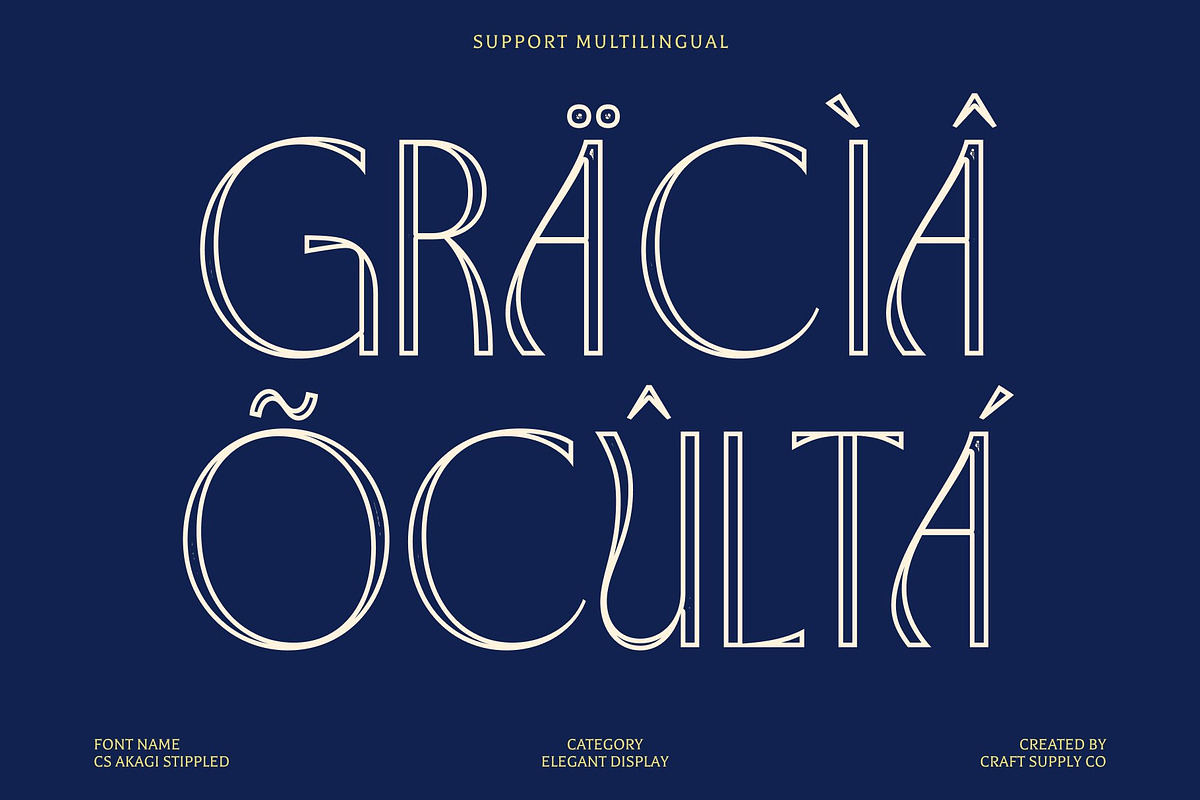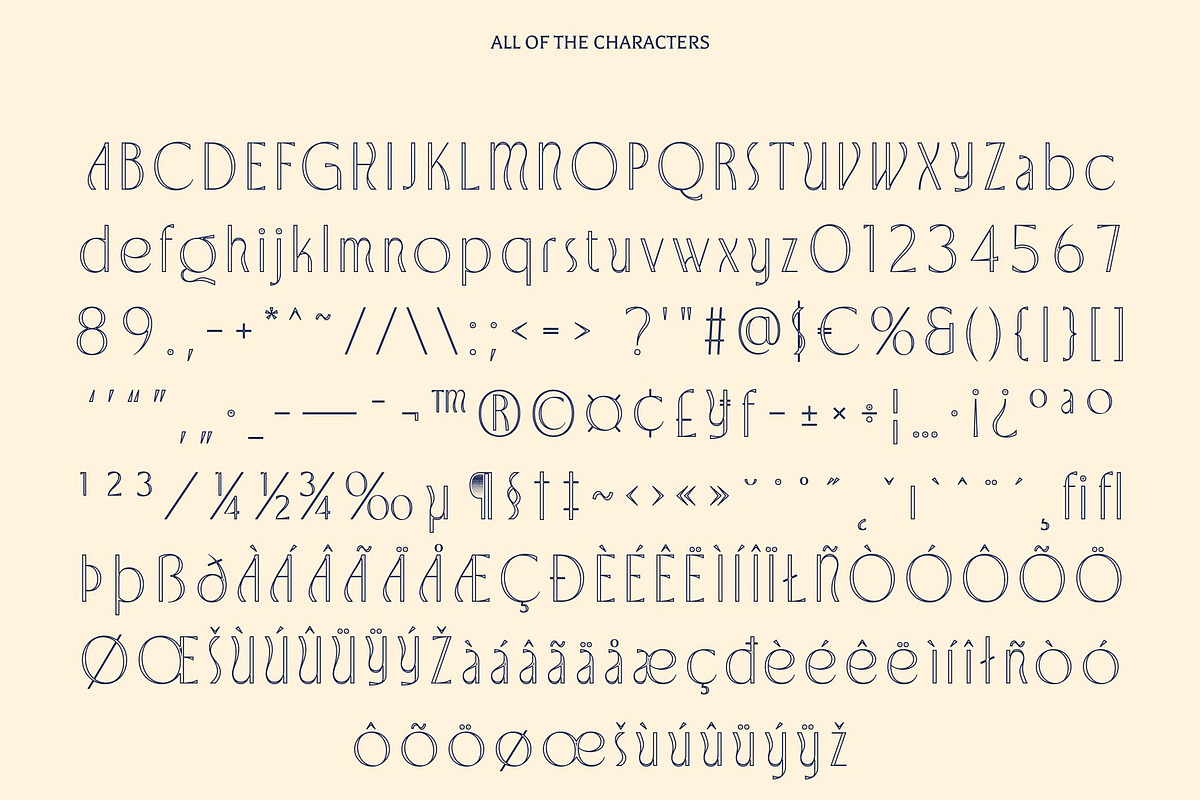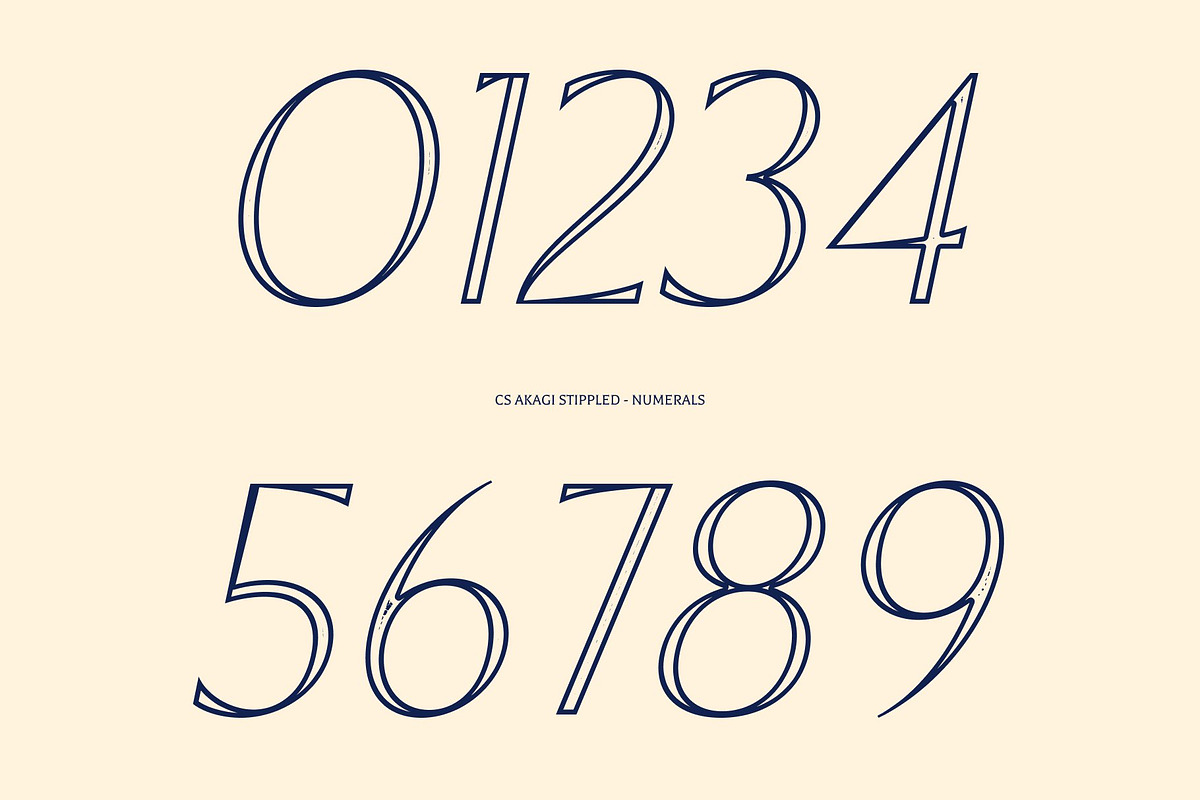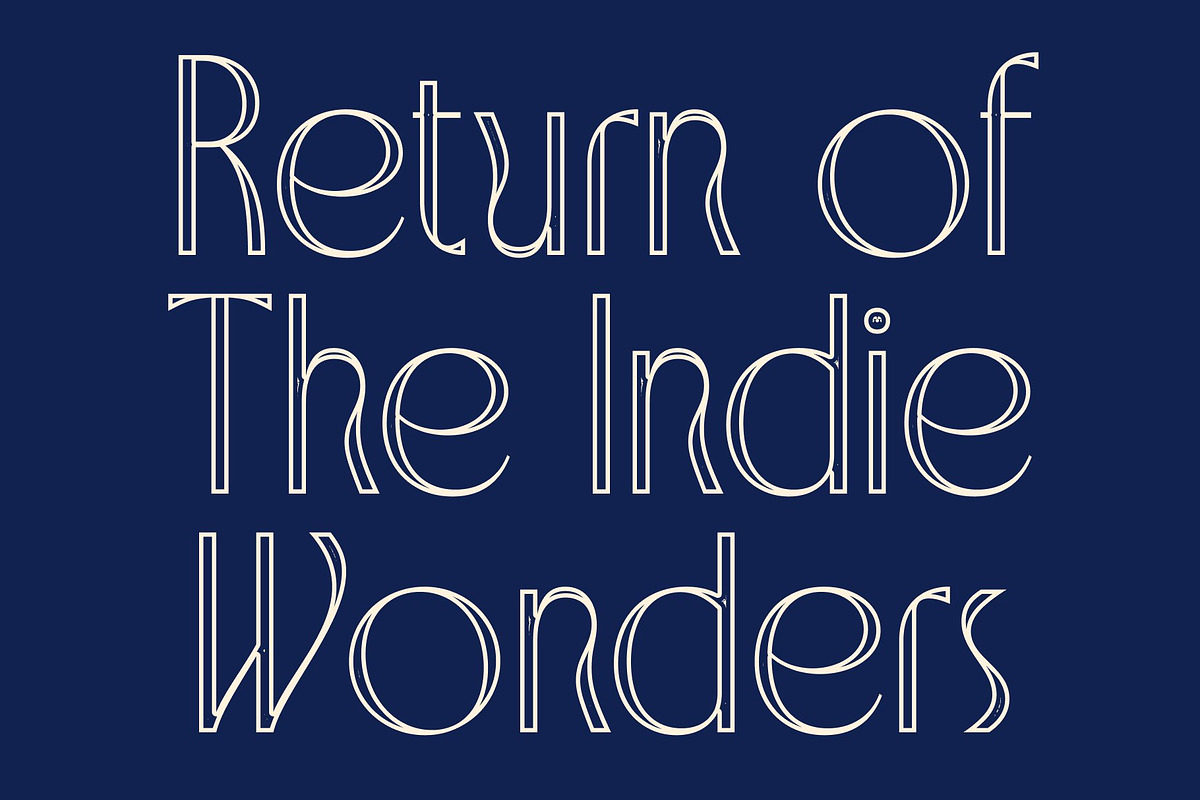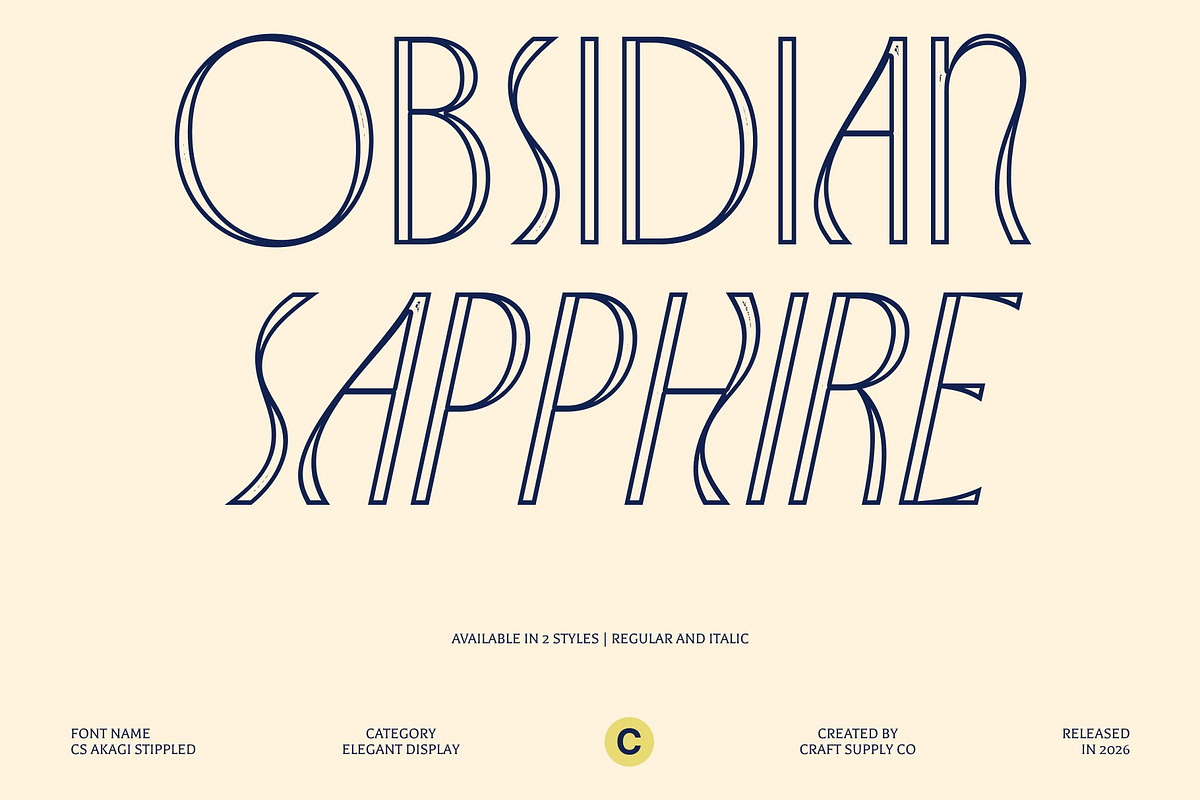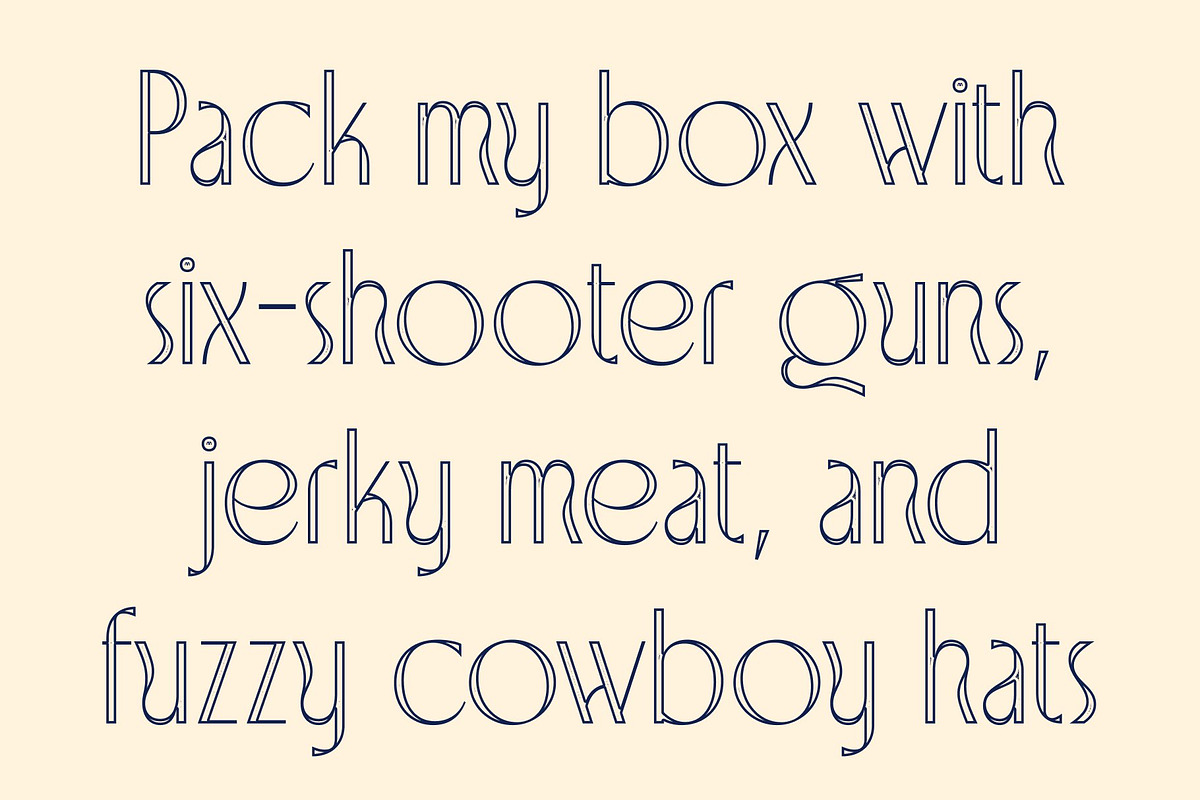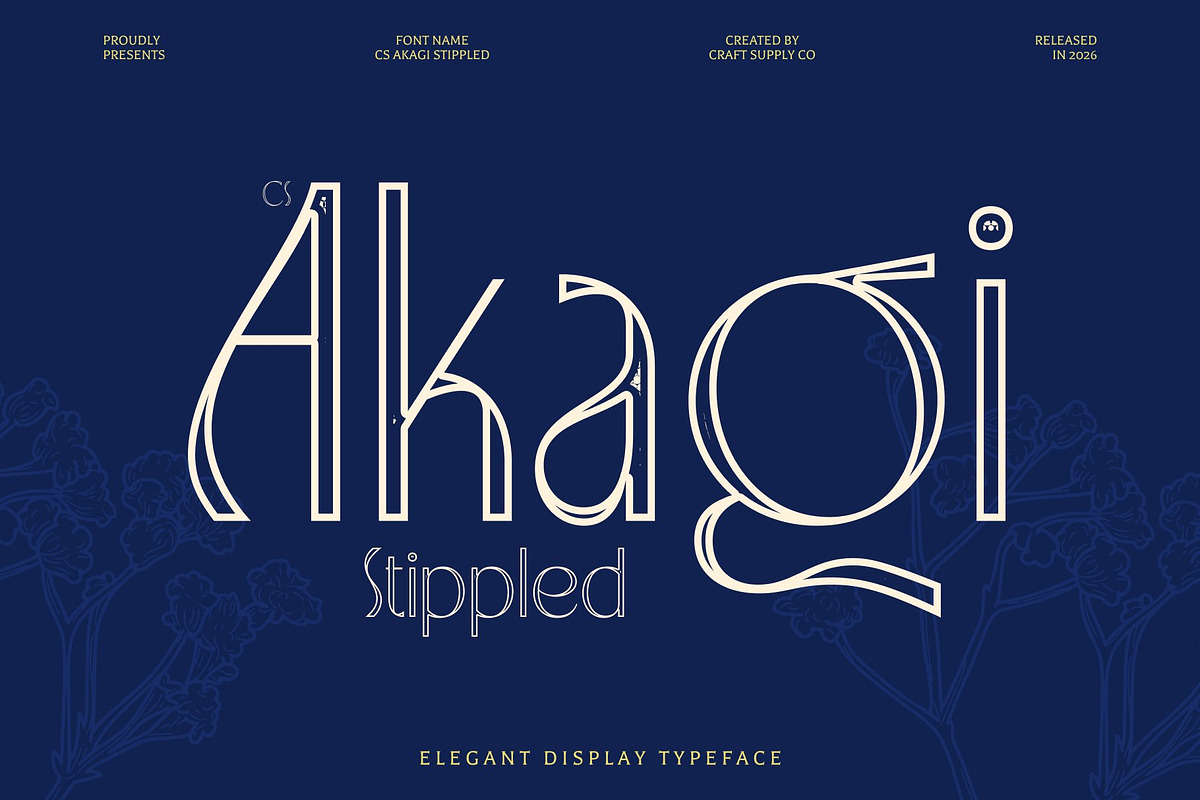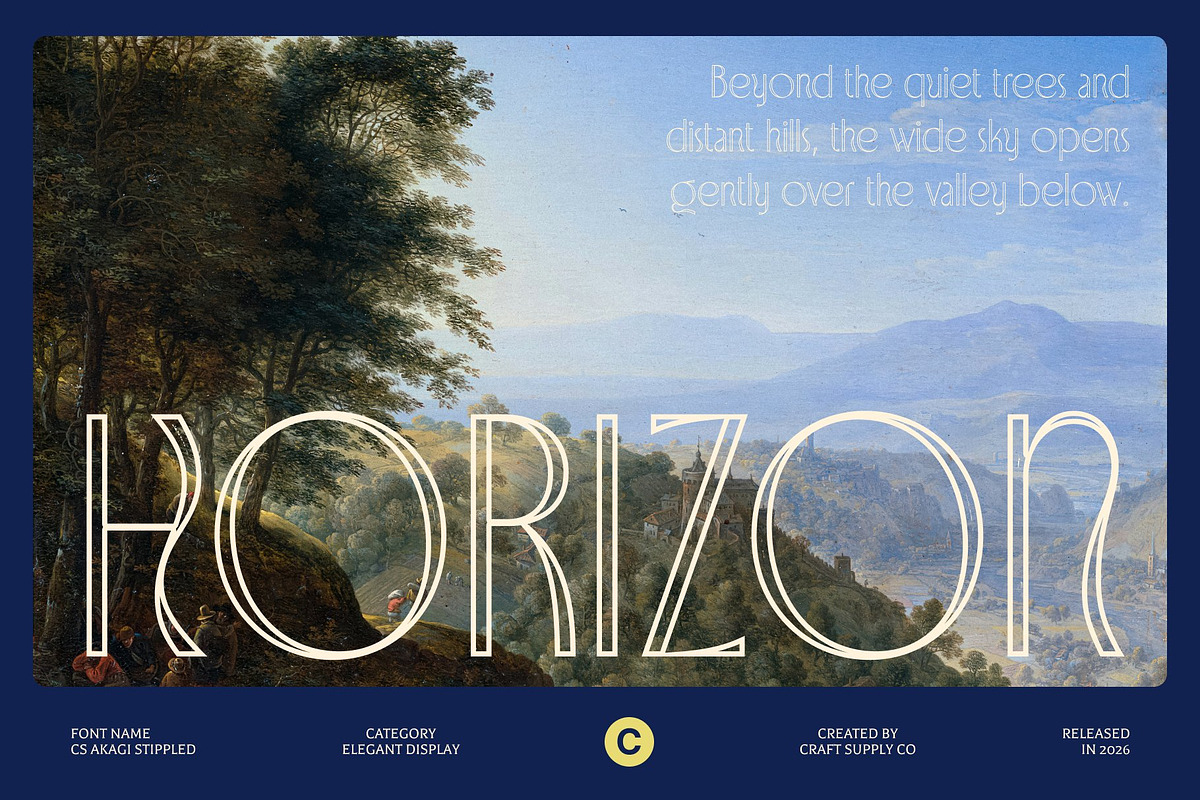
CS Akagi Stippled
CS Akagi Stippled – Elegant Flow with Art Nouveau Sophistication
Elegant Sans Serif with Stippled Artistry This is an elegant sans serif font crafted with refined curves and elevated by a dense stippled texture. Inspired by the organic flow of Art Nouveau, it blends fluid motion with clean, modern structure. The added dotwork surface introduces an artistic, handcrafted quality, creating a typeface that feels luxurious, expressive, and visually distinctive.
Organic Curves Enhanced by Dotwork Texture Graceful curves define the rhythm of this font, while subtle quirks in the letterforms add personality without compromising clarity. The stippled detailing resembling classic ink-dot and stippling illustration techniques adds depth and softness to each character, enhancing its natural flow and giving the font a tactile, artistic presence.
Classic Elegance Meets Modern Refinement Built on a clean sans serif foundation, this font balances classic sensibility with modern, geometric nuances. The stippled texture introduces warmth and a vintage-inspired impression, while the structured forms ensure readability and contemporary appeal. This harmony allows the font to feel timeless yet fresh, decorative yet functional.
Ideal for Editorial, Fashion, and Premium Branding Designed for high-end creative applications, excels in editorial layouts, advanced book design, packaging, fashion branding, and luxury visuals. Its elegant construction supports long-form reading, while the stippled surface elevates headlines and display text with sophistication, artistry, and a refined handcrafted feel.